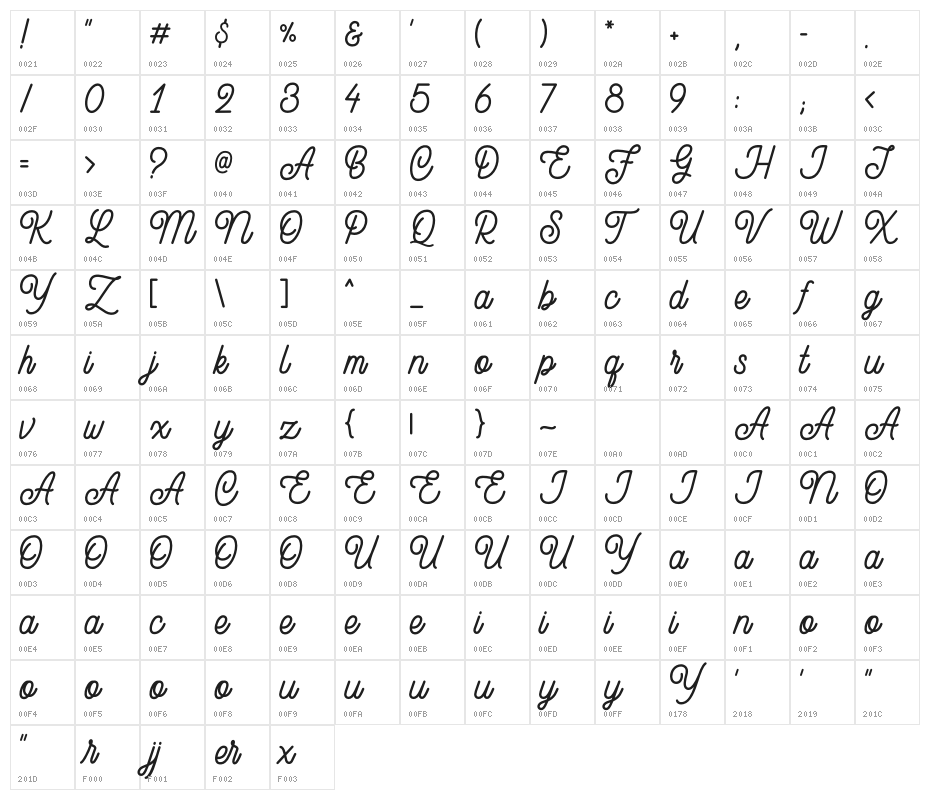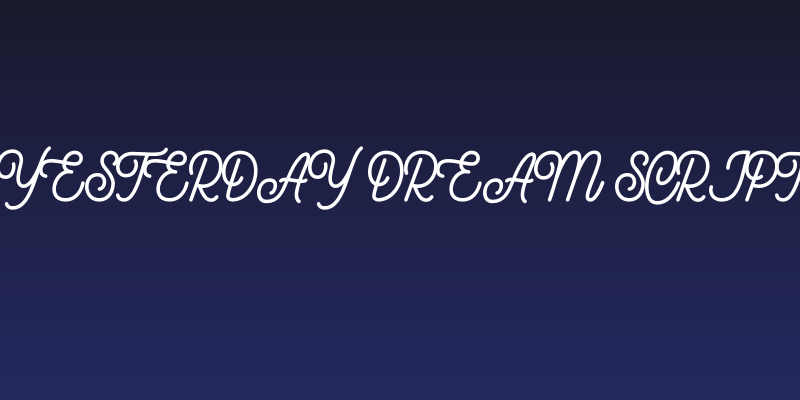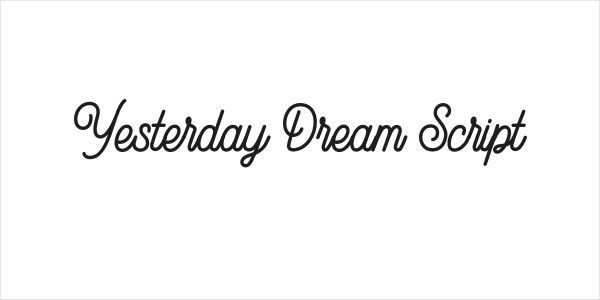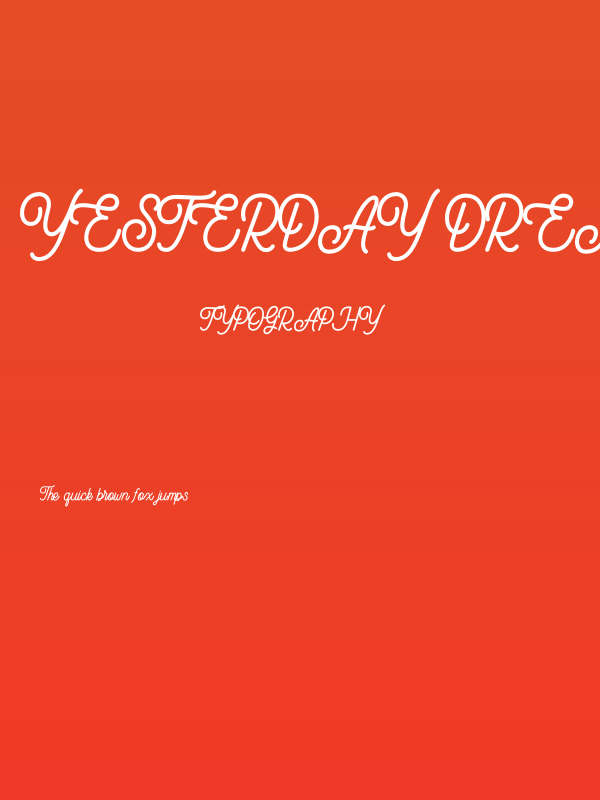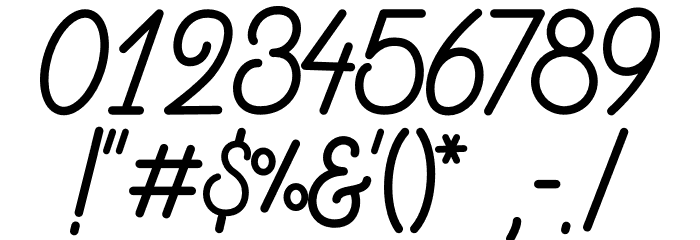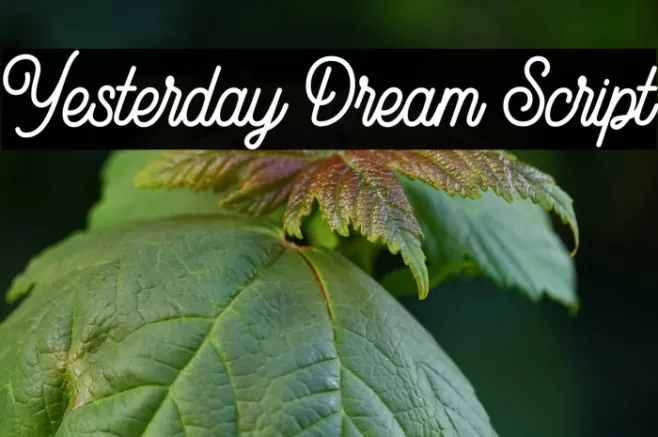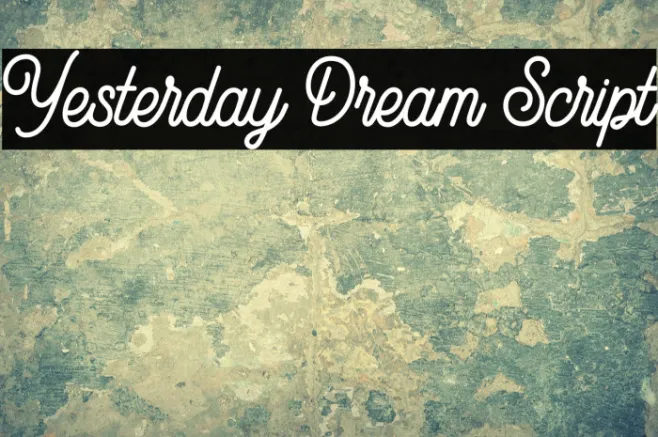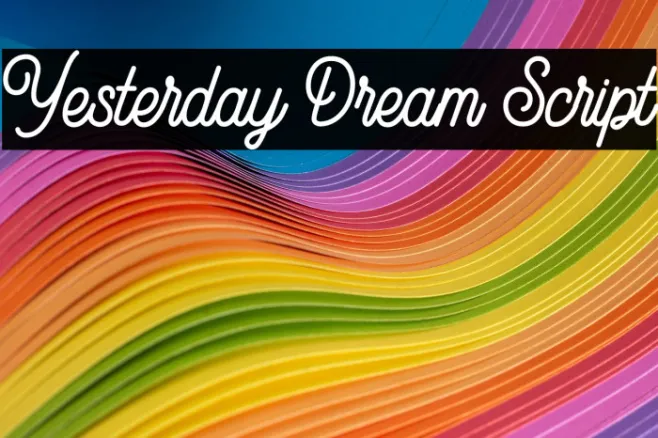
Yesterday Dream Script Font
Yesterday Dream Script Description
This font features a flowing, cursive style that exudes elegance and sophistication. The characters are interconnected, creating a seamless and fluid appearance. The uppercase letters are slightly more elaborate, with graceful loops and swirls, while the lowercase letters maintain a consistent and smooth flow. The numerals and special characters are designed to complement the overall script style, ensuring a cohesive look across all text. This font is perfect for projects that require a touch of class and refinement, such as wedding invitations, formal event programs, or elegant branding materials.
| Proposed Projects | Ideal for wedding invitations, elegant branding, and formal event programs. |